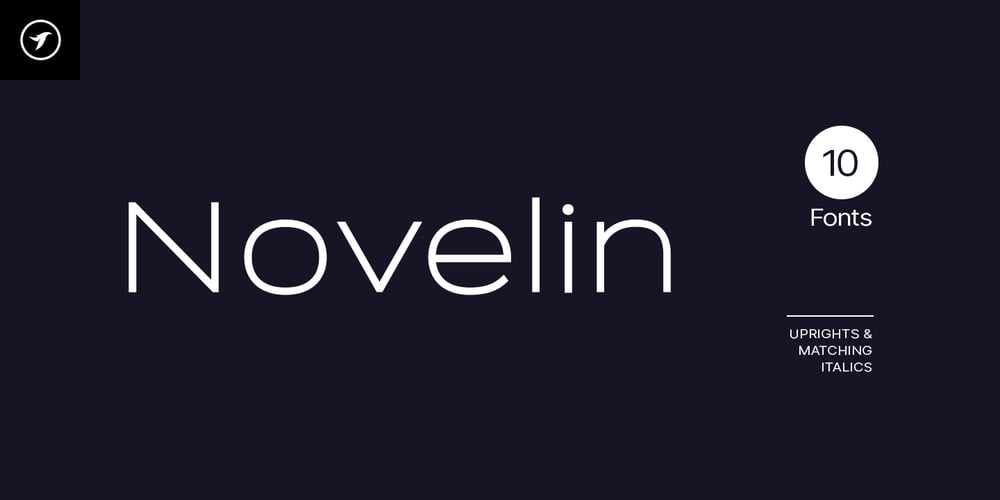
Novelin
Novelin font
Novelin Font Family was designed by Jean Johnson and published by Designova. Novelin contains 10 styles and family package options. Novelin is a modern typeface with a unique design and a perfect choice for creating logotypes, branding, headlines, corporate identities, and marketing materials for web, digital & print alike. The typeface will be great for branding, logo/logotype design projects, marketing graphics, banners, posters, signage, corporate identities, and editorial design.